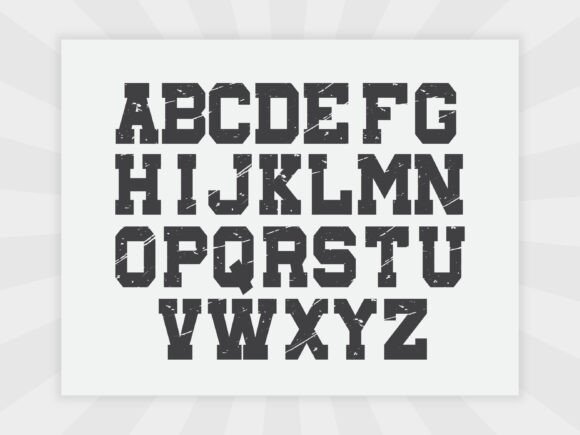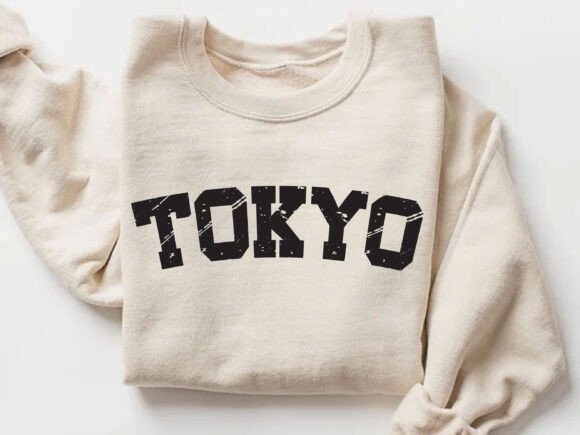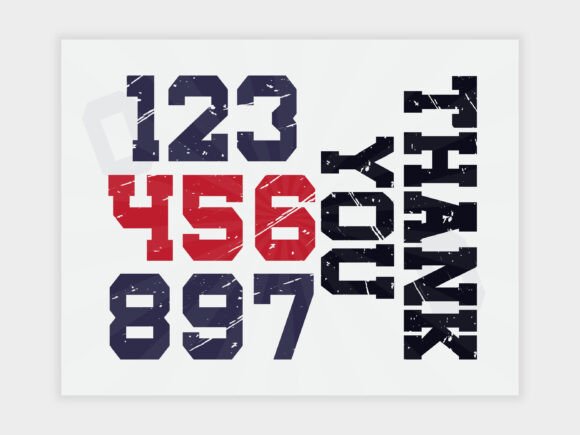
Introduction to Retro Texture Font
Have you ever been rummaging through your grandfather’s old trunk, uncovering forgotten memorabilia and dusty photographs? As you dig deeper, you stumble upon a vintage sports jersey with a faded, yet still vibrant, font that screams nostalgia. That’s the exact feeling you get when you use a Retro Texture Font in your design projects.
As a designer, you’re constantly on the lookout for unique design resources that can elevate your creative project to the next level. That’s where Retro Texture Font comes in – a high-quality font that adds a touch of classic varsity style to your designs. With its transparent background, you can easily integrate it into your projects without any hassle.
Key Features of Retro Texture Font
- High-quality design resource perfect for creative projects, with a unique retro aesthetic.
- Unique texture effects and distressed look, adding a touch of nostalgia and character to any design project.
Honest Review: Retro Texture Font
I recently stumbled upon the Retro Texture Font and was excited to give it a try. As a designer, I’m always on the lookout for high-quality design resources to elevate my creative projects. This font is a great addition to my toolkit, and I’m happy to share my honest review.
- Unique texture design that adds a nostalgic touch to my projects
- Some characters may be inconsistent in terms of texture and spacing
- May not be suitable for projects that require precise typography
Overall, I’m impressed with the Retro Texture Font. While it’s not perfect, it’s a great resource for designers who want to add a unique touch to their projects. With a little experimentation and adjustment, I’ve been able to get great results with this font. If you’re looking for a creative way to add texture to your designs, I’d definitely recommend giving it a try.
Retro Texture Font
Retro Texture Font is a unique design resource that can elevate your creative project to the next level. This high-quality font features a distressed texture that adds a vintage touch to any design.
To get the most out of Retro Texture Font, use it for:
- Creating vintage-inspired designs
- Adding texture to digital products
- Designing marketing materials
Remember to experiment with different font sizes, colors, and combinations to achieve the desired look.